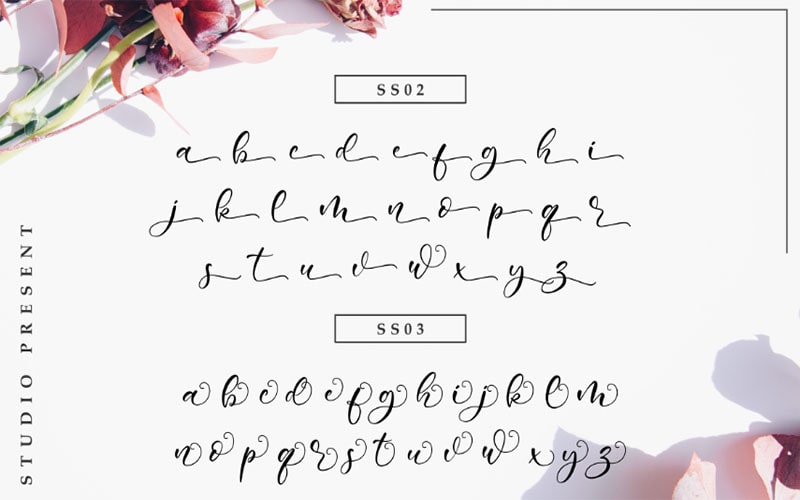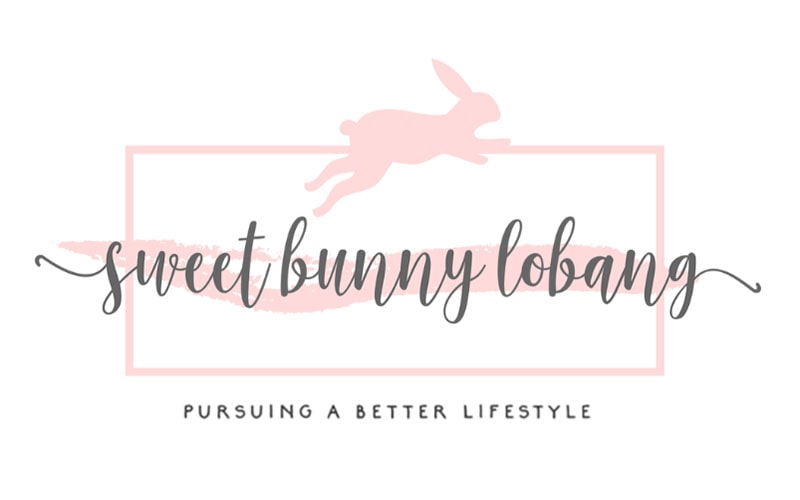
The Sweet Bunny Font is a charming and whimsical typeface that brings a touch of playful elegance to any design project. It was crafted by a talented designer Wahyu Studio.
He is known for their whimsical and creative approach to typography. The result is a typeface that exudes charm and delight, making it a perfect choice for a variety of design projects.
Inspired by the enchanting world of children’s stories and illustrations, the designer aimed to create a font that captures the innocence and joy of these themes.
It is a handwritten typeface that mimics the playful and carefree strokes of a brush. It combines the elegance of cursive writing with the spontaneity of freehand drawing, resulting in a font that is both sophisticated and approachable.
It typically comes in a single, versatile style that maintains its playful character while offering legibility and aesthetic appeal. Its handwritten style features smooth curves and whimsical flourishes that give it a distinctive look.
The font’s unique style allows it to be used in a variety of design contexts, from professional branding to casual personal projects. It is a delightful addition to any designer’s toolkit.